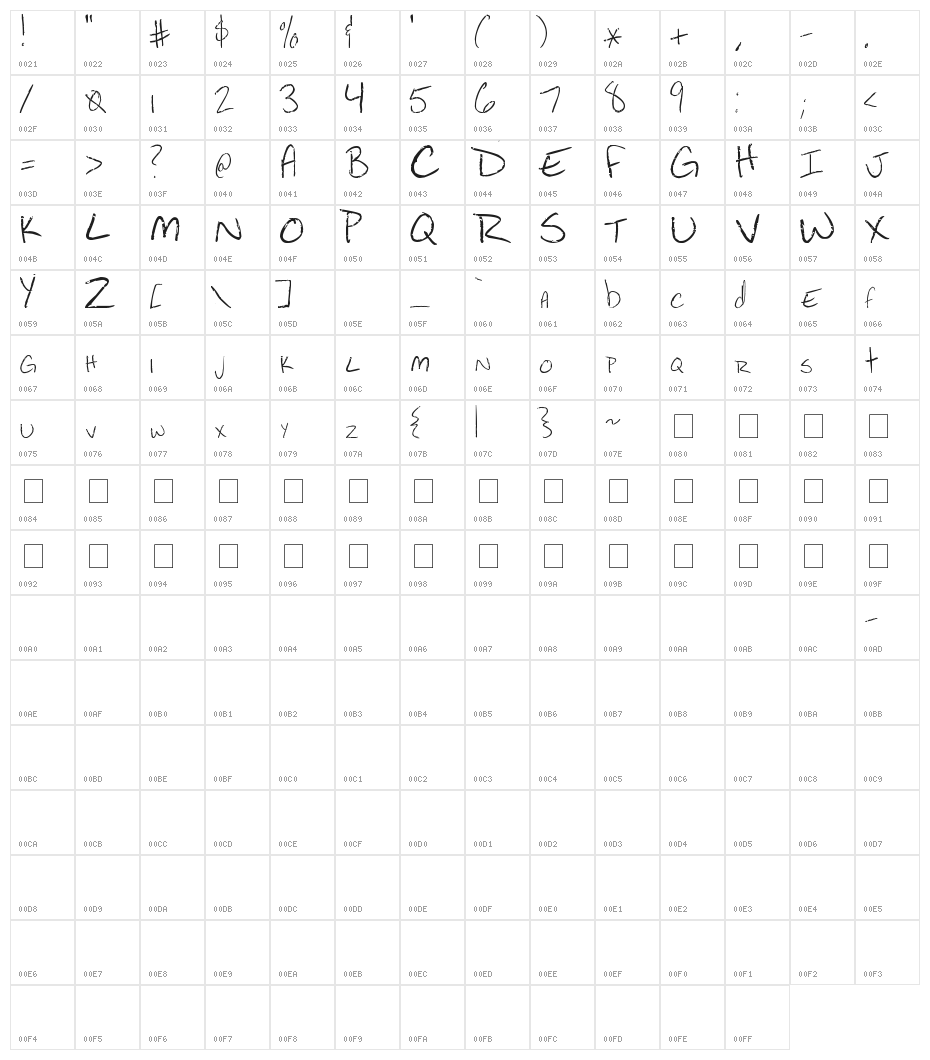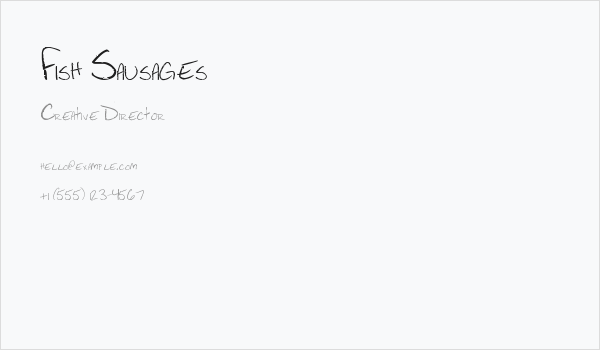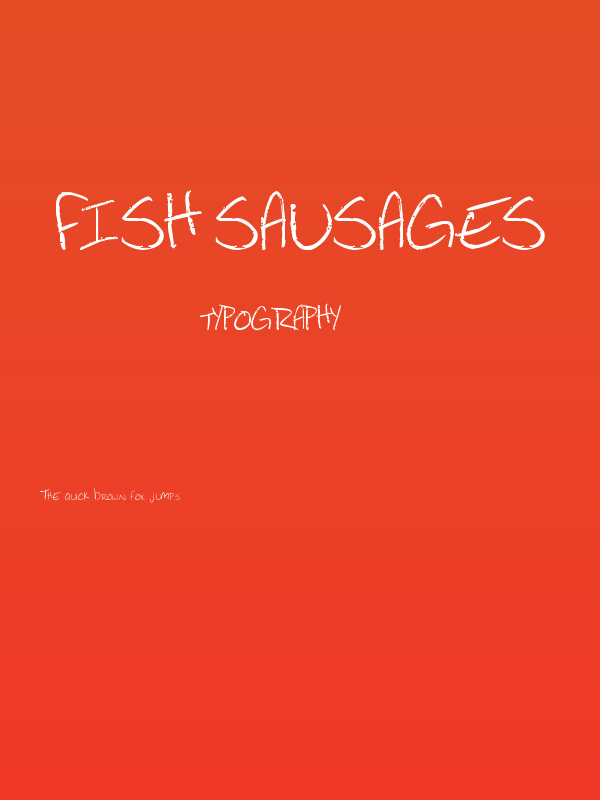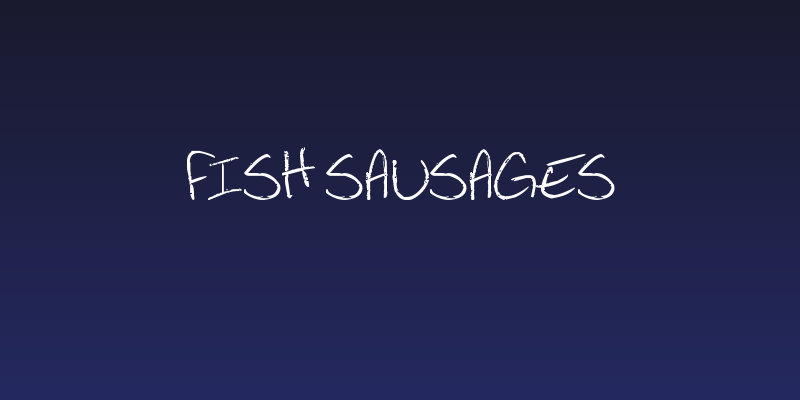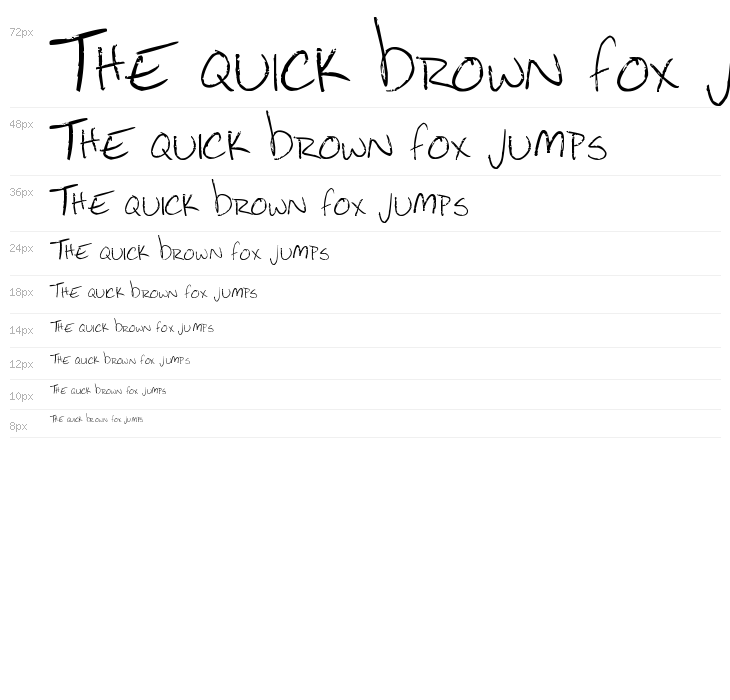
Fish Sausages Font
Fish Sausages Description
This font exudes a playful and casual handwritten style, characterized by its uneven strokes and slightly rough texture. The letters have a natural, organic flow, giving it a personal and informal touch. The uppercase and lowercase letters maintain a consistent style, with a slight slant that adds to its dynamic appearance. Numbers and special characters follow the same aesthetic, ensuring uniformity across all glyphs. The font's imperfect lines and varied stroke widths contribute to its unique charm, making it ideal for projects that require a personal, human touch.
| Proposed Projects | Ideal for greeting cards, personal blogs, creative branding, and informal invitations. |